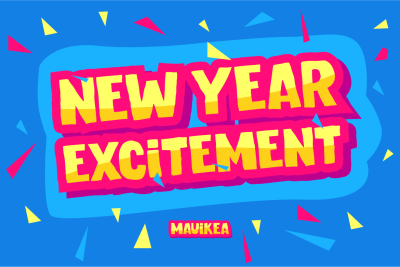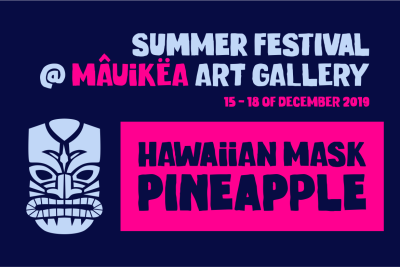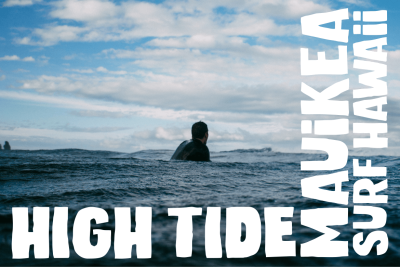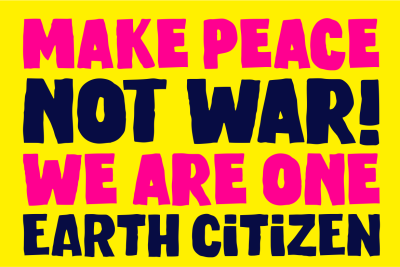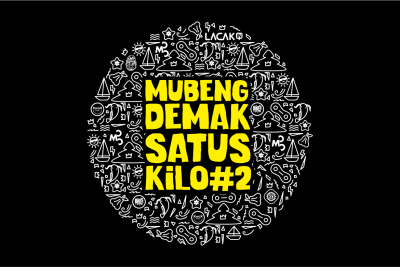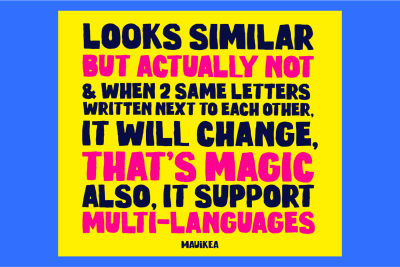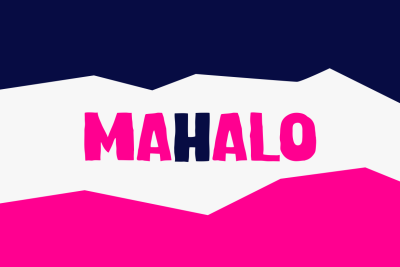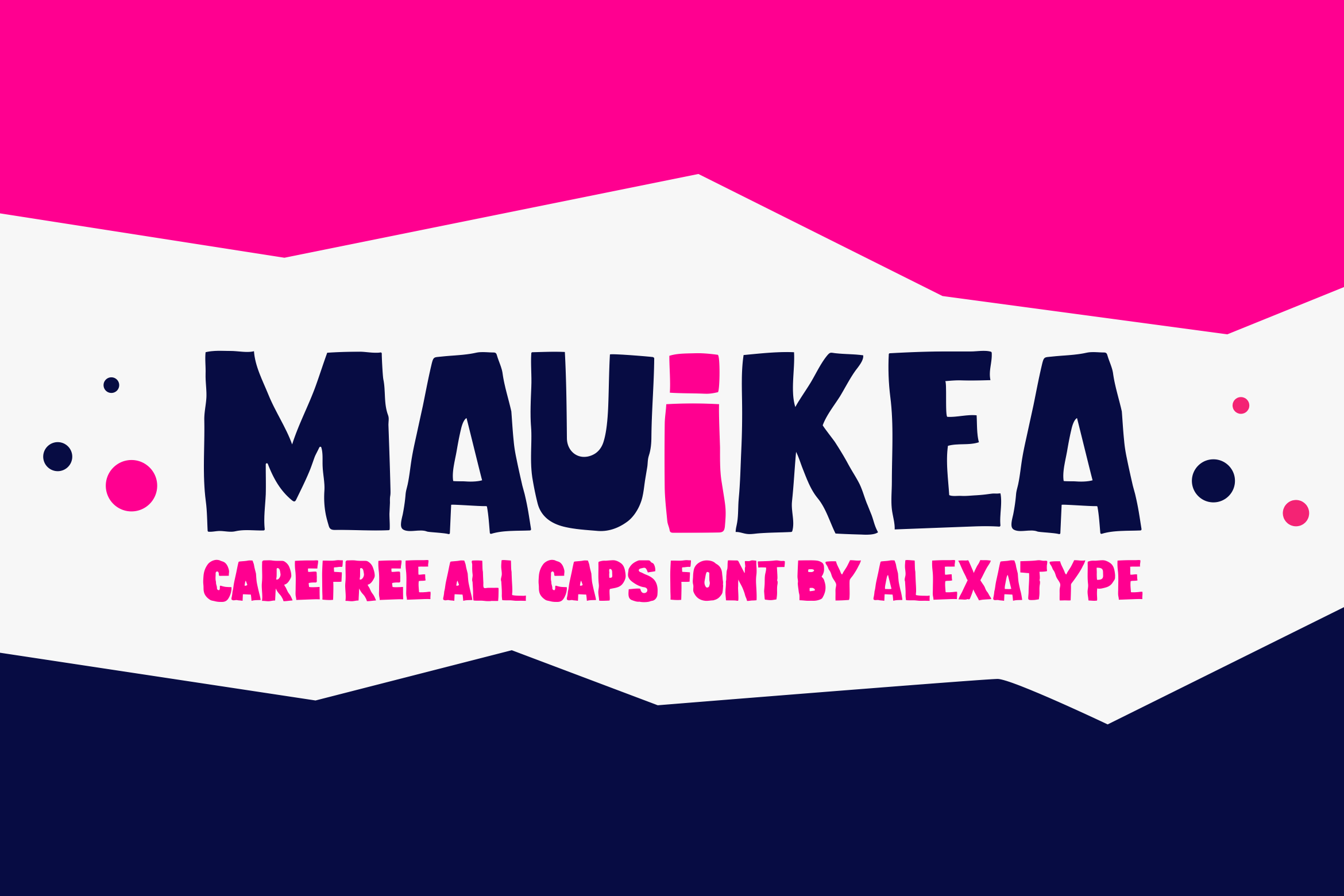
Music Font MAUIKEA is a vibrant and carefree all-caps typeface. It exudes fun and spontaneity. Moreover, its bold, uneven strokes and touch of irregularity create an approachable, friendly aesthetic. Designed to grab attention, MAUIKEA radiates energy and creativity. Therefore, it works well for projects aiming to convey a lively and informal vibe. Additionally, the fontโs playful shapes and dynamic arrangement encourage exploration, especially in colorful, high-energy designs.
The hand-crafted feel of MAUIKEA gives it a unique personality. Consequently, it ensures the font stands out in crowded digital and print media. Pair it with bright, contrasting color palettes and graphic elements like geometric shapes or playful patterns. Furthermore, its thick letterforms enhance readability, even from a distance. This makes it reliable for headlines, posters, or bold branding statements.
MAUIKEA is not just another decorative font; it is a tool for storytelling. It brings a sense of movement and joy to designs, ensuring the audience feels connected to the message. Whether used digitally or in print, its dynamic look captivates viewers and leaves a lasting impression. By leveraging its playful yet bold features, designers can evoke excitement and creativity, adding a spark to any project.
Music Font MAUIKEA is ideal for creators, influencers, and brands aiming to project a fun, youthful personality. Itโs perfect for content creators designing Instagram stories, reels, or posts that stand out in vibrant, saturated feeds. Additionally, its eye-catching design appeals to brands targeting Gen Z and millennial audiences, particularly in fashion, lifestyle, and entertainment.
MAUIKEA also excels for party invitations, festival promotions, or childrenโs content. Indeed, its playful nature makes it great for event branding, kids’ product packaging, or quirky merchandise designs. Whether youโre an illustrator, small business owner, or social media marketer, this font offers the perfect balance of creativity and functionality. Ultimately, it helps your message pop with personality.
For educators or non-profits targeting younger audiences, MAUIKEA can also be a valuable asset. Its approachable style works wonders for childrenโs books, educational posters, or interactive online materials. Moreover, brands aiming to create limited-edition designs or bold campaigns can rely on this fontโs uniqueness to achieve a memorable look. By incorporating MAUIKEA into various applications, users can elevate their designs to convey joy, creativity, and originality.